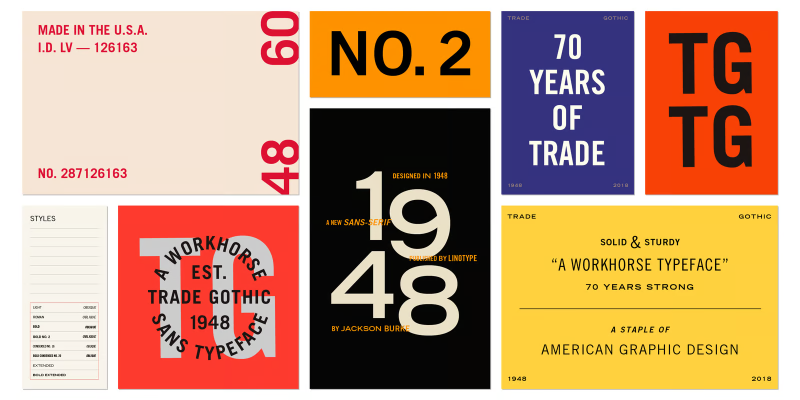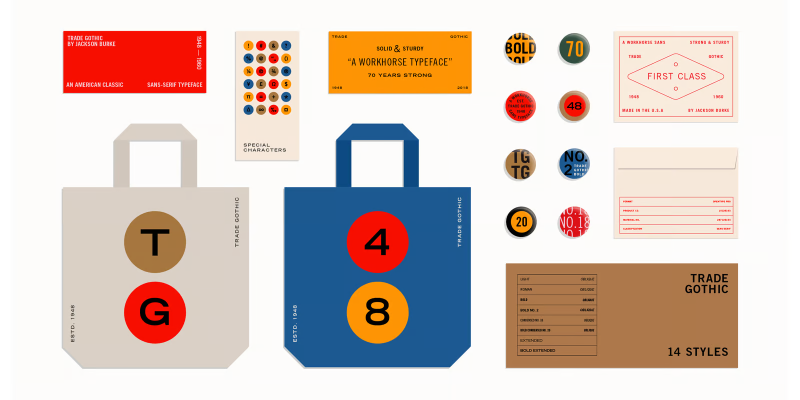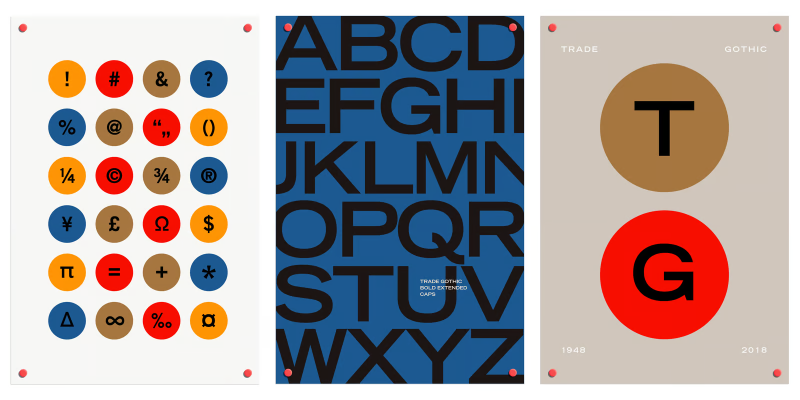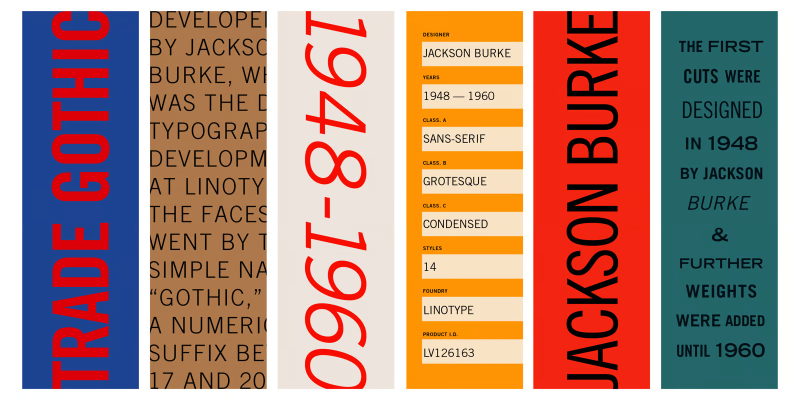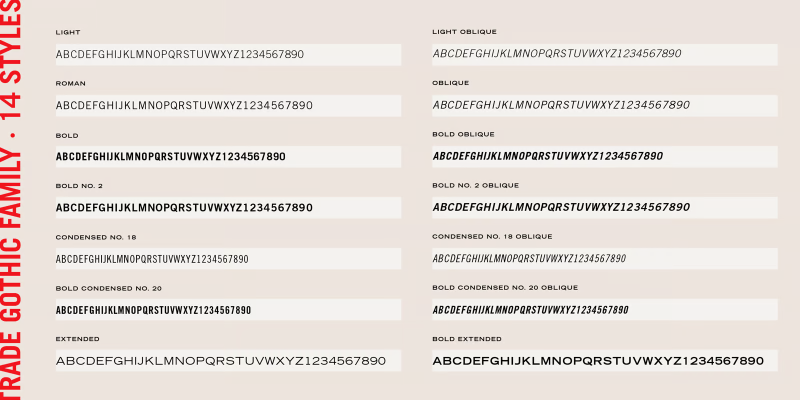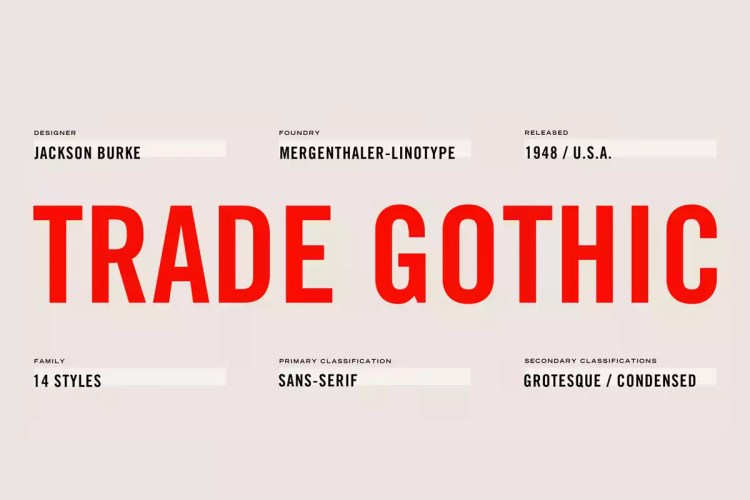
Trade Gothic Font
Trade Gothic, created by Jackson Burke for Linotype in 1948, is a family of fonts. Burke based his Trade Gothic font on the Futura and Akzidenz-Grotesk sans-serif types…
Trade Gothic, created by Jackson Burke for Linotype in 1948, is a family of fonts. Burke based his Trade Gothic font on the Futura and Akzidenz-Grotesk sans-serif types that were popular then but added a hint of his personal design touch to develop the style. Over time, this font has undergone numerous revisions and extensions, and more weights and styles were added to meet designers’ changing requirements.
Trade Gothic is a trendy font used in various design schemes and projects for many years. Renowned for its clean and contemporary appearance, visual designers consider Trade Gothic the font of preference when beauty and statement are among the design goals. This font is very adaptable and selectable. Its main features include versatility and legibility, making it suitable for applications such as branding and advertising, web design, and print materials.
Trade Gothic, also known as a classical typeface created by the designer Jackson Burke, boasts a robust history that extends to 1970. Morris Fuller Benton designed it for an automatic typesetting machine called Linotype from 1948 to 1960. The type proved its worth when technologies and printing styles were advancing rapidly.
Jackson Burke was an all-around guy who proved his design abilities even further with Trade Gothic, a modern interpretation of 19th-century Gothic typefaces. Portraying a newer and more contemporary style of sans-serif fonts whose main characteristic is the combination of old linear and geometric forms, Trade Gothic was formed while incorporating the sense and utility of earlier typography for newspapers and advertising.
The creation of Trade Gothic involved a practical design that was made specifically to meet the printing industry’s needs, including the purpose of a handy typeface for the articles and header lines. This is supported by its x-height (extremely large for its height) and condensed variants designed to maximize legibility and space efficiency so that designers can fit a lot of text into narrow columns and small prints.
Charting the course over time, Trade Gothic’s popularity increased, becoming an inevitable element of editorial design, advertising, and branding. This period led to its being considered a favorite typeface for all graphic designers seeking a reliable typeface with an exponentially extensive range of applications.
Trade Gothic is almost always in designers’ libraries because of its multiple-usage options and holderness. It is frequently used in newspaper headlines or advertising. impressionistic technique. What is most palpable about its abbreviations is its ability to summarize significant texts in small areas, which is great for newspapers with challenging formats and spaces.
Trade Gothic, just like its name suggests, has a clean and geometric form. Hence, designers consider it an excellent knockout for modern and minimalistic makeup. Here is a comprehensive overview of the font’s key features: Here is a comprehensive overview of the font’s key features:
From the many weights available, like the light ones, to the bold ones in Trade Gothic font, there are always suitable options to enhance the design. By definition, weight differentials can be used to create links within a design.
The characters in Trade Gothic are structurally harmonious and symmetrical, with straight lines and no curves, making the font visually sleek, thick, and evocative. The same-size letters make it easy to read from big to smaller fonts because the proportions are always uniform.
Trade Gothic uses the Gothic design, with a counter such as the one that dismisses the closure within its letters. The large areas that remain void of strokes help the typeface achieve high legibility at small sizes.
In addition to the regular widths, Trade Gothic is also available in condensed kind. These answers provide an option that is hardly needed in areas with limited space or compact designs.
The Trade Gothic font encompasses broad language palettes and unique characteristics, so the symbolism on the products will be accurately interpreted across different countries. This simplicity makes it appropriate for multilingual projects and ensures compatibility with various design software.
Compared with other widely used sans-serif fonts (e.g., Helvetica and Univers), Trade Gothic bears a unique mark for its geometric proportions, open counters, and weight variations. Although Helvetica and Univers have pros and cons, Trade Gothic offers an innate aspect that can be cool, captivating, and memorable.